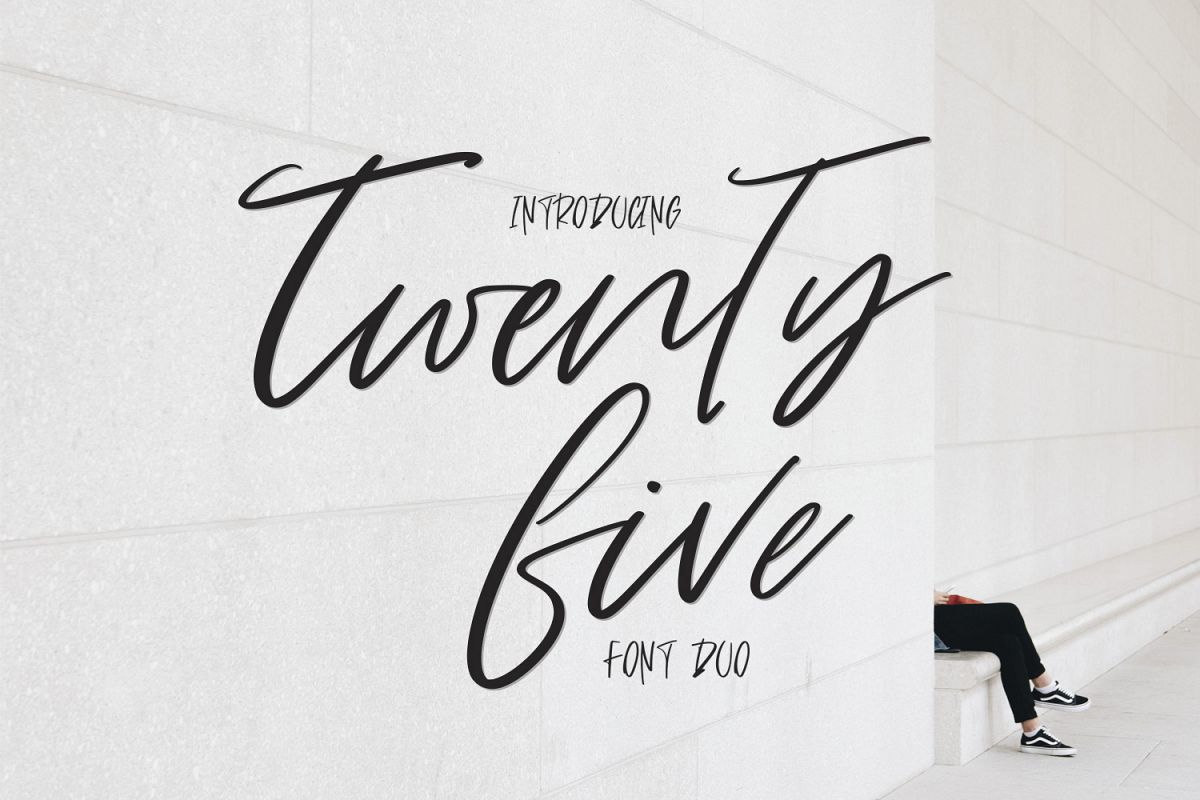
Twenty Five. Font Duo -modern signature fonts Twenty Five.otf - uppercase, lowercase, numbers, punctuation and ligature Twenty Five.ttf - uppercase, lowercase, numbers, punctuation Twenty Five Script.otf - standart and alternate uppercase, lowercase, numbers, punctuation and ligature Twenty Five ScriptSt.ttf - standart and alternate uppercase, lowercase, numbers, punctuation and ligature Twenty Five ScriptAl.ttf - alternate uppercase and lowercase